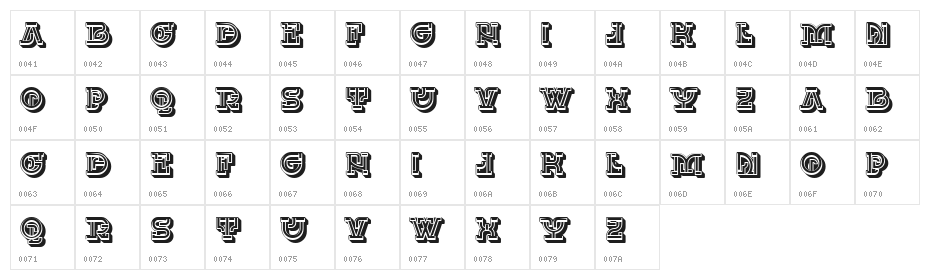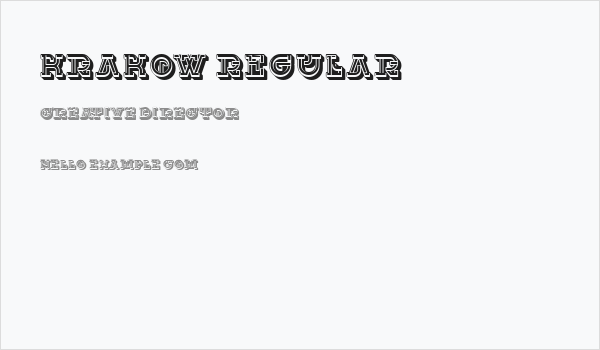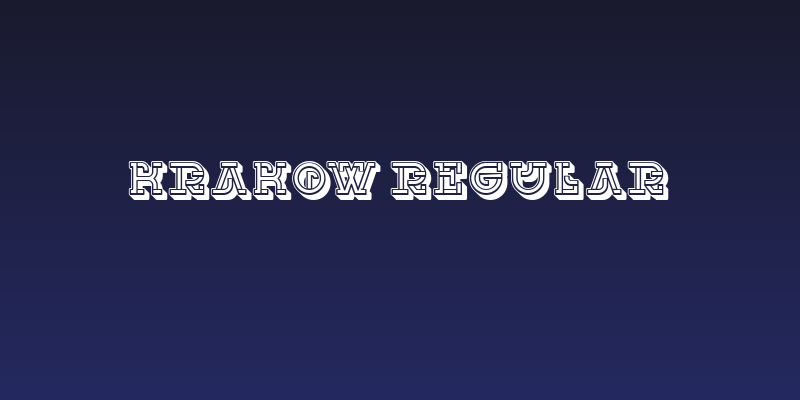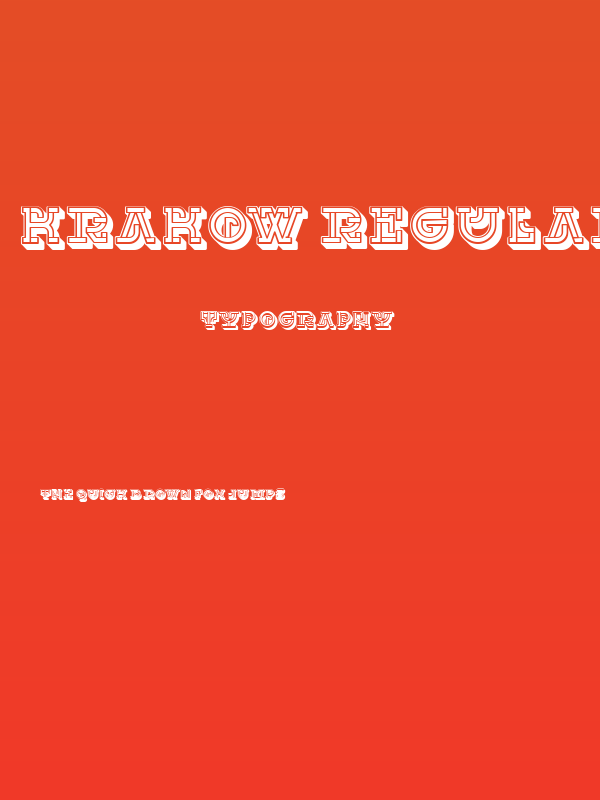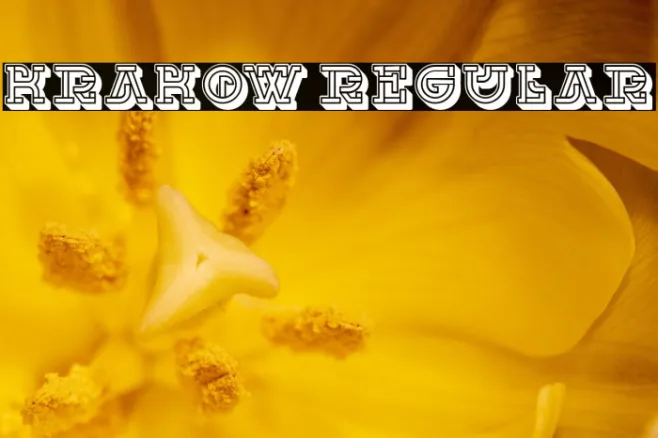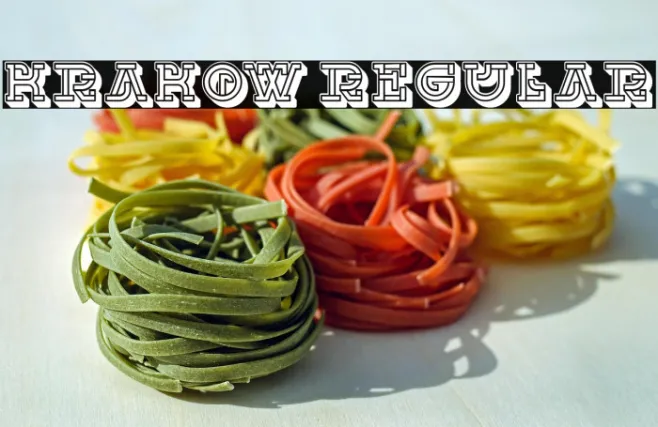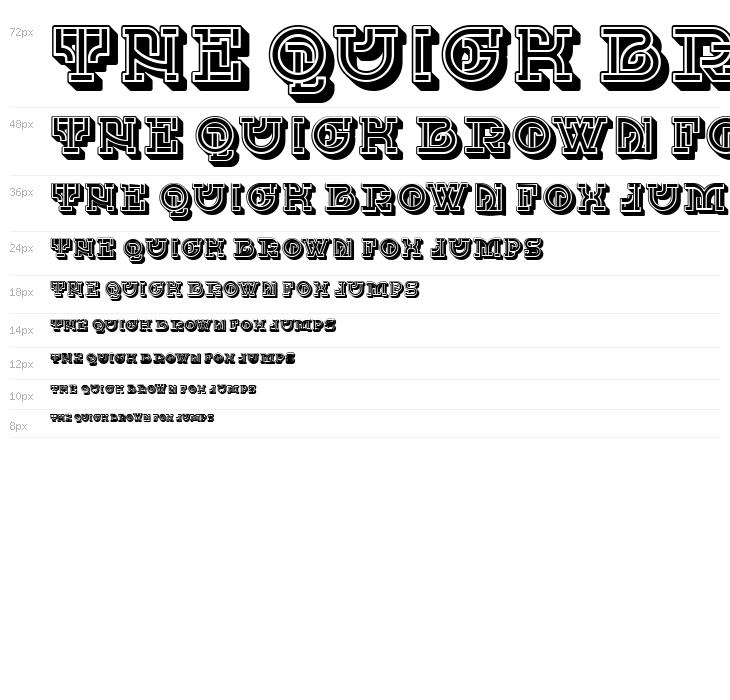
Krakow Regular Font
Krakow Regular Description
This font features a bold, decorative style with intricate line work and shadowing that gives it a three-dimensional appearance. The characters are uppercase, with each letter displaying a unique combination of thick and thin strokes, creating a high contrast. The design includes elaborate serifs and geometric patterns within the letters, adding to its ornate and eye-catching aesthetic. The spacing between characters is relatively tight, enhancing the compact and cohesive look of the text. This font is ideal for projects that require a strong visual impact and a touch of vintage flair.
| Proposed Projects | Ideal for poster designs, branding, headlines, and any project needing a vintage or decorative touch. |